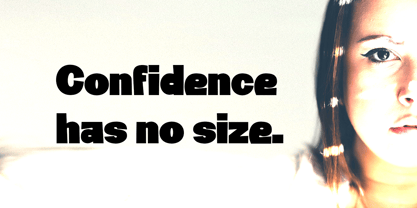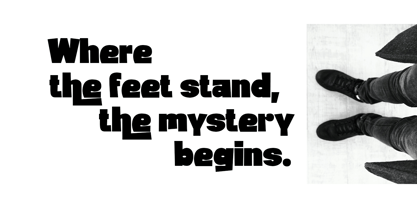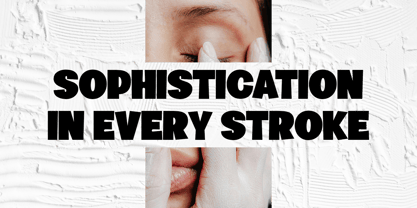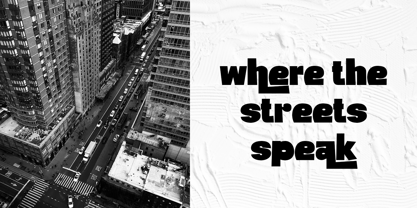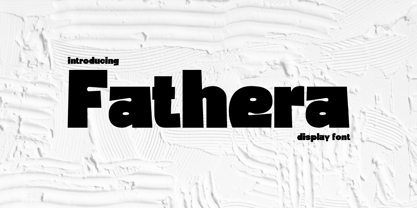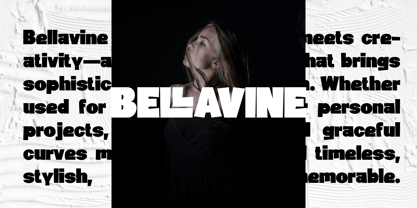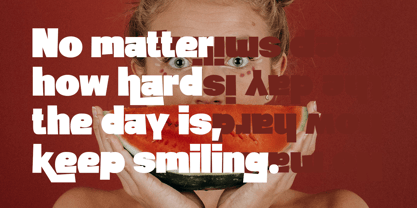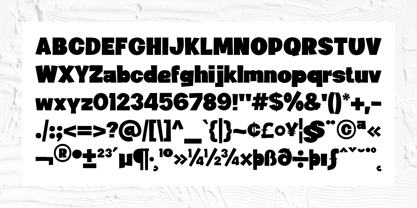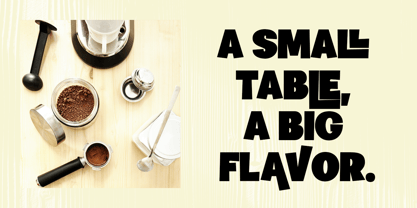
Fathera
by Gatype
The Fathera Font Family was designed by khaidir and published by Gatype. Fathera contains 1 styles. More about this family
The latest Fathera, a new and playful display font. It blends modern style with a touch of fun and elegance, making it versatile for both formal and creative projects. Packed with alternates and ligatures, this font lets you explore endless design possibilities and bring more character into your work. Perfect for branding, packaging, posters, or any project that needs a distinctive and lively feel. Features: Inside the download file Multilingual support Punctuation Alternates Ligatures 👉 To access the alternates and ligatures, please use a program that supports OpenType features such as Adobe Illustrator, Adobe Photoshop, Adobe InDesign, or CorelDRAW.
Designers: khaidir
Foundry: Gatype
Fathera